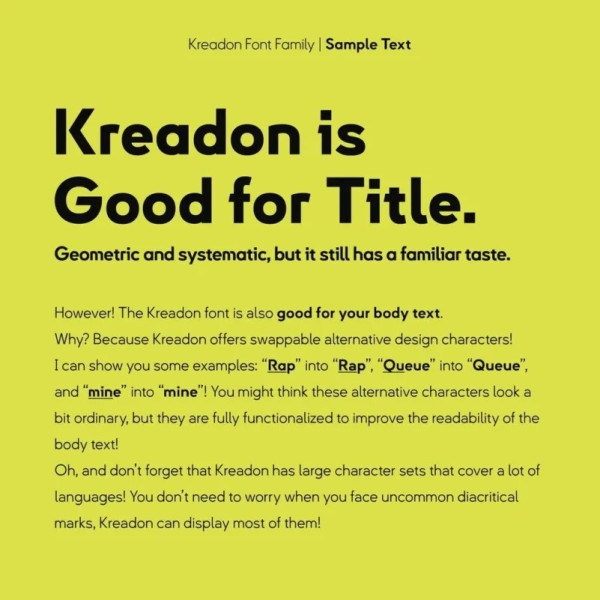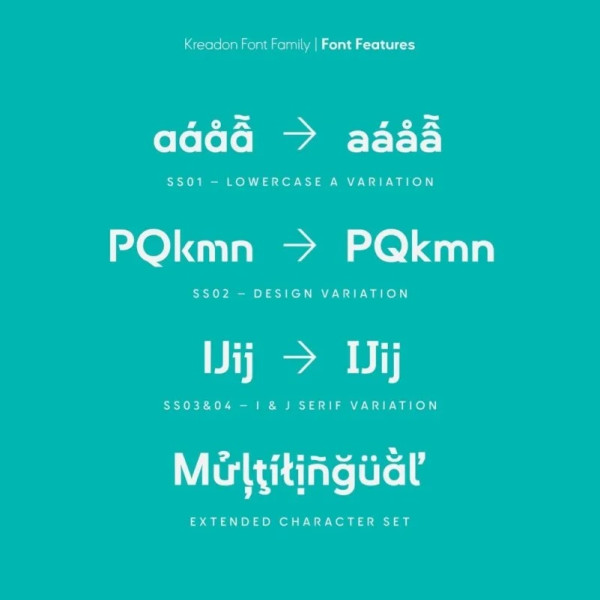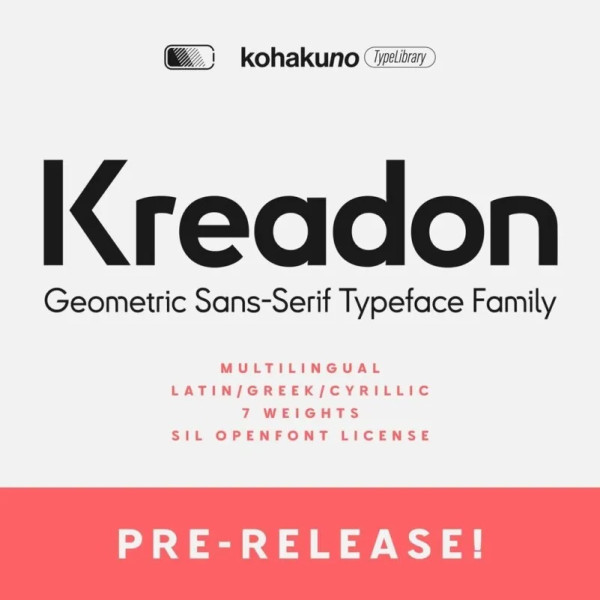
Kreadon Font
Kreadon Font is a type of sans-serif font that has a simple character and clean geometric shapes, with a lack of ornament. The Kreadon typeface has 7 weights ranging from Extra Light to Extra Bold. It supports Latin, Greek, and Cyrillic alphabets, and offers swappable alternative characters with the OpenType features.